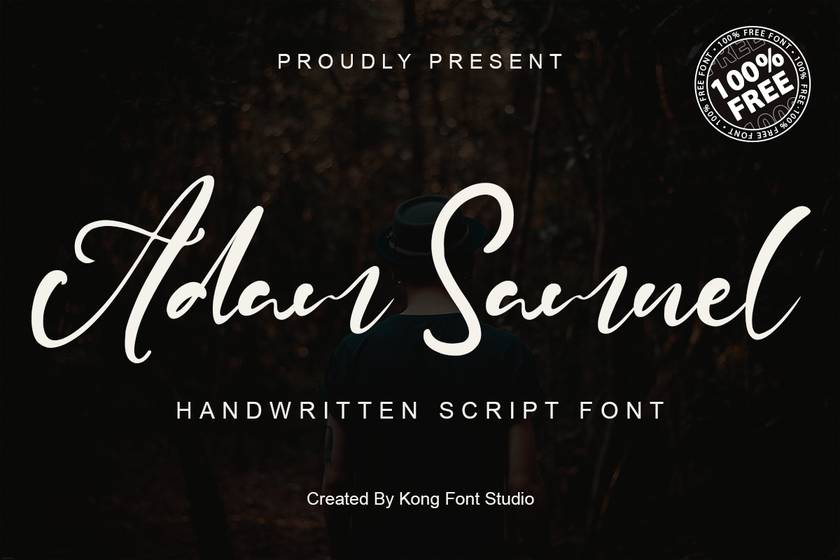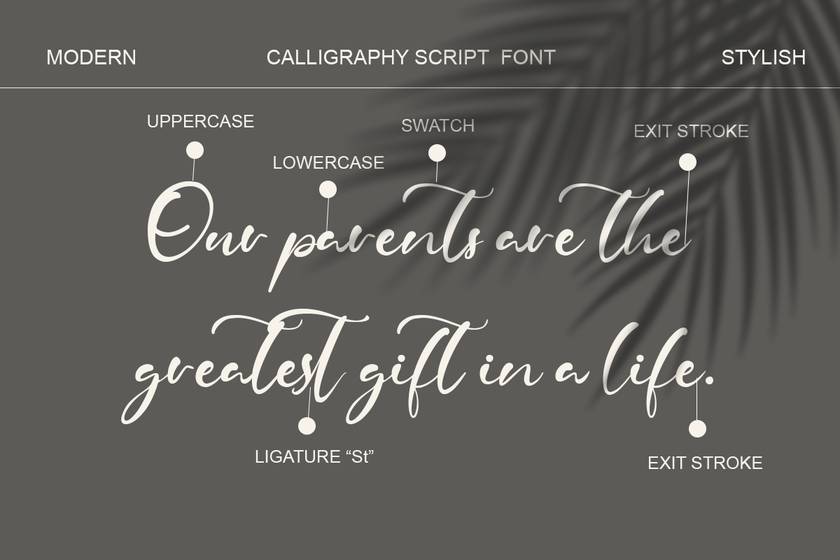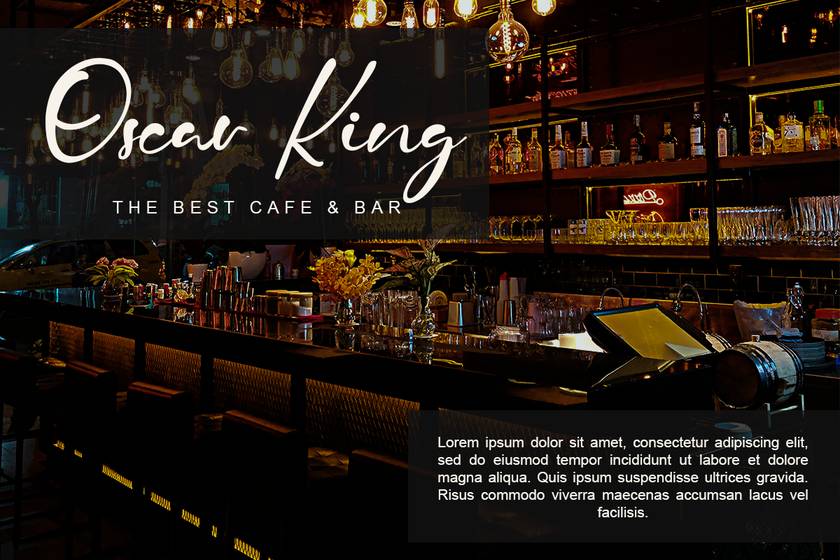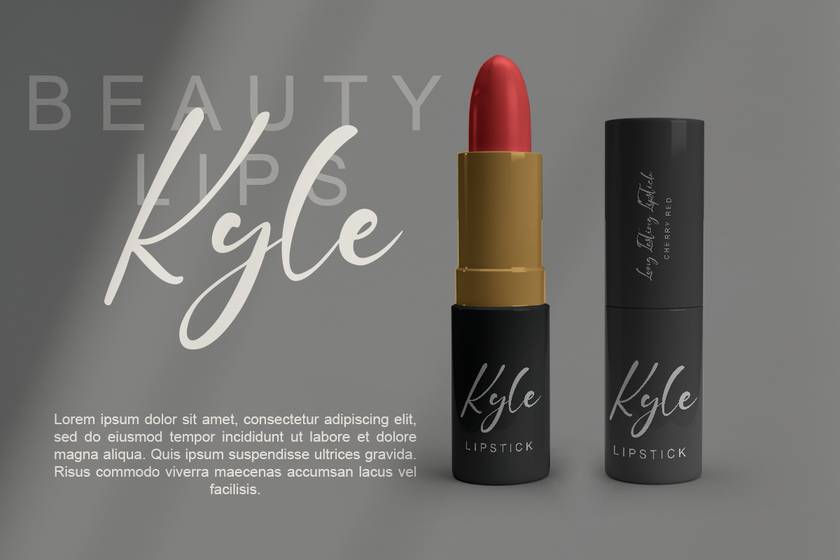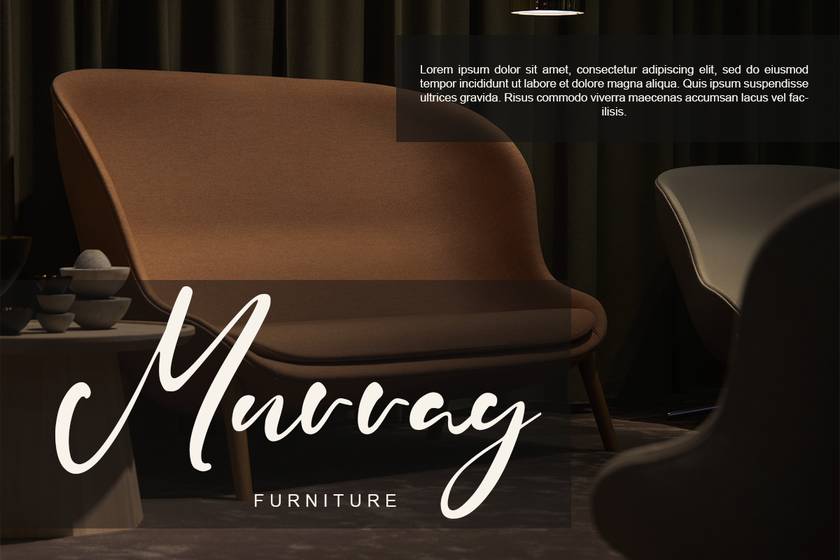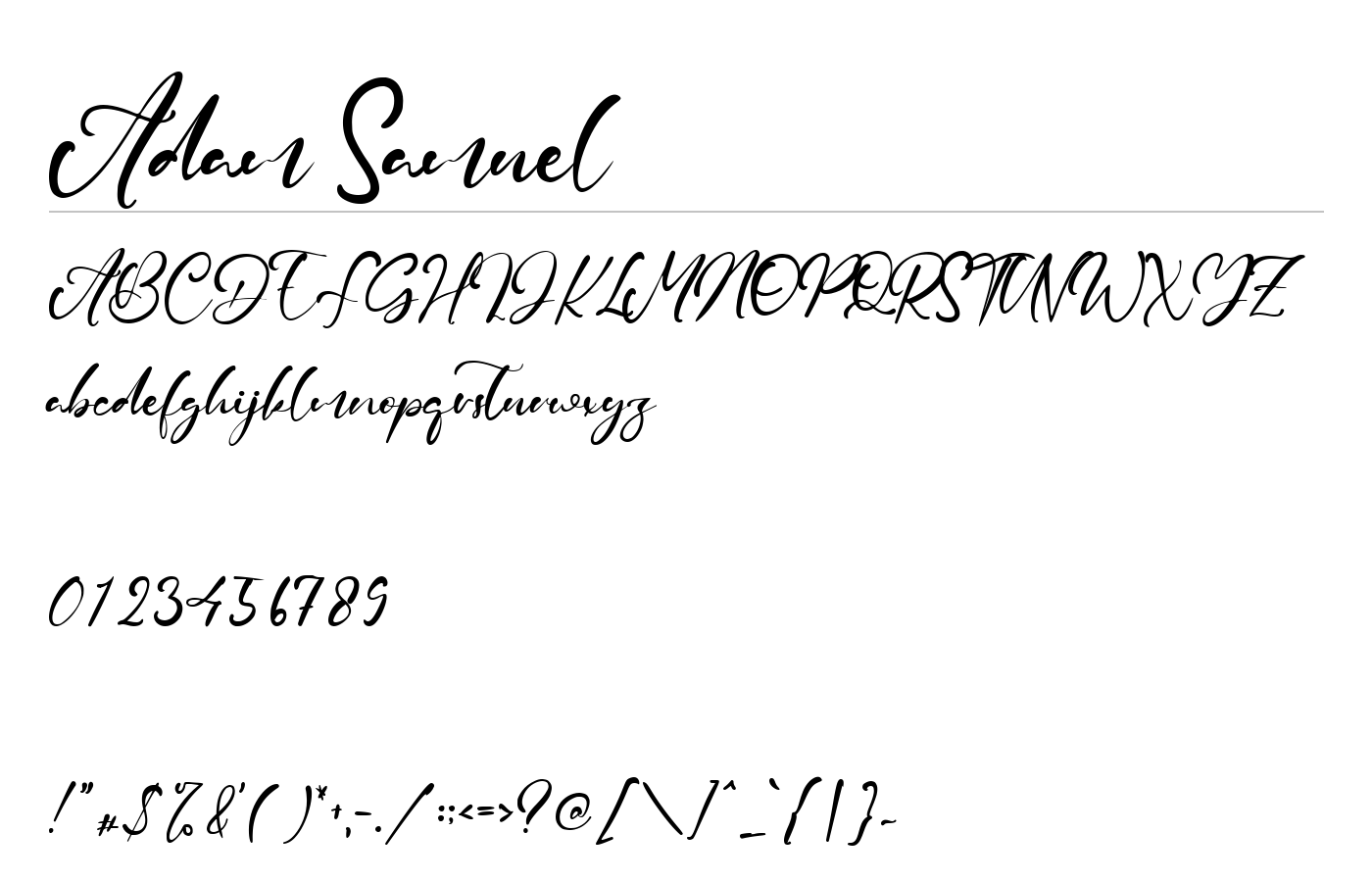
Adam Samuel is an elegant script font featuring fluid, hand-drawn strokes with a refined and graceful appearance. Its slender letterforms and varying stroke weights create a sophisticated and artistic vibe, making it ideal for branding, invitations, and stylish editorial projects that seek a personal, modern touch.
Adam Samuel Font
About Adam Samuel Font
| Font family | Adam Samuel Font |